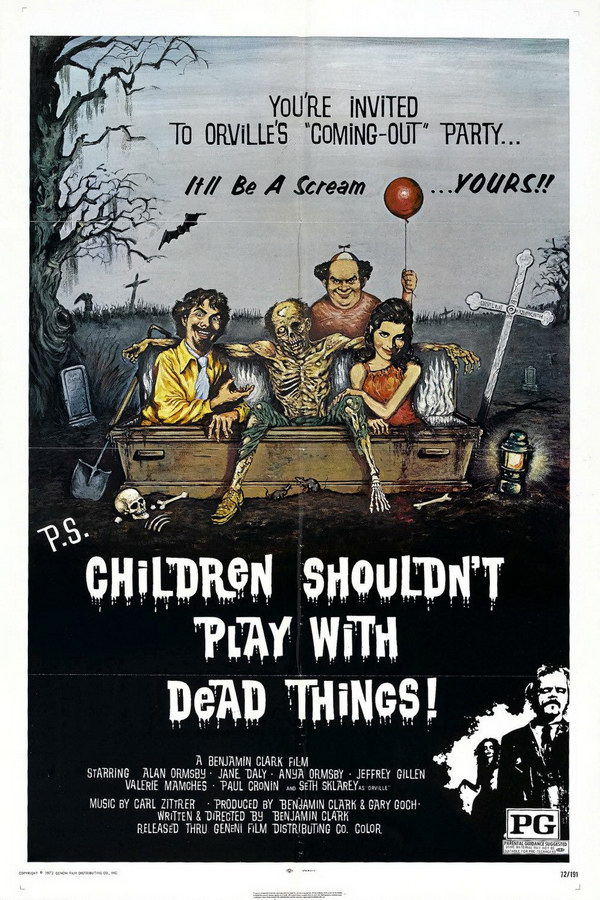
Children Shouldn’t Play with Dead Things Font
Fonts in UseChildren Shouldn’t Play with Dead Things is a 1972 horror movie about a group of actors who perform a satanic ritual on a remote island, only to unwittingly raise the dead.